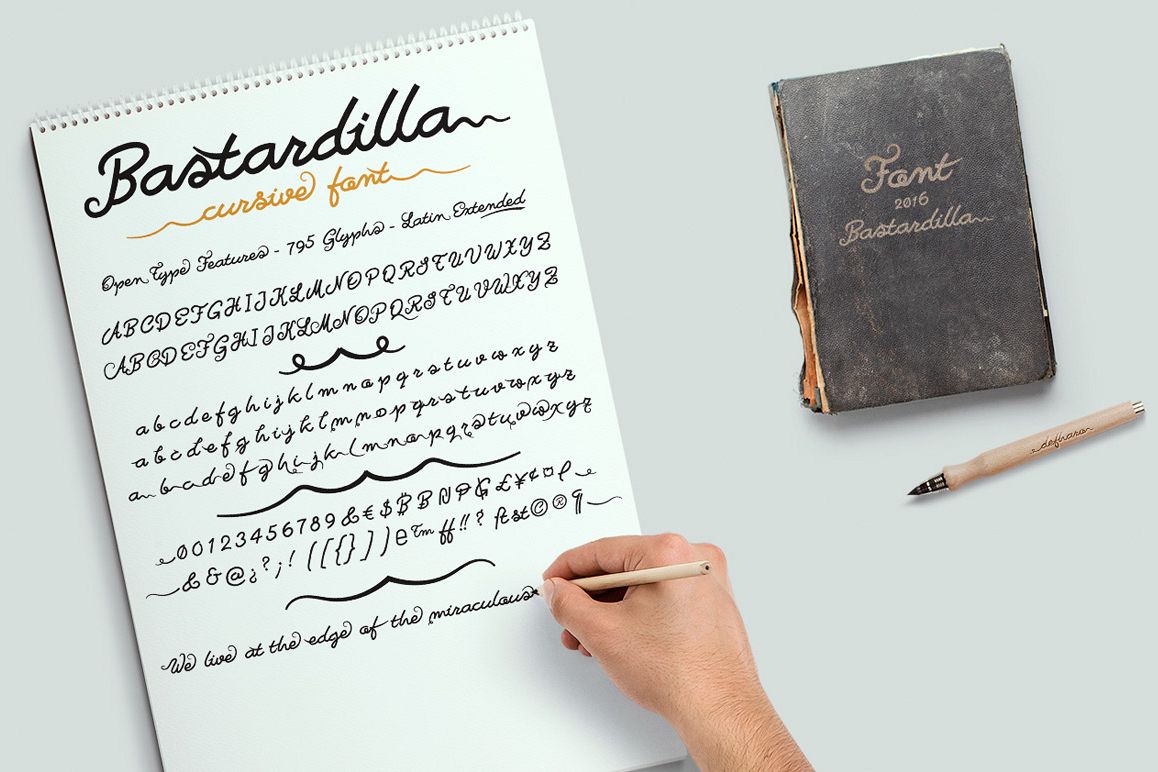
Bastardilla
Bastardilla is a concatenated handwritten font. The commercial version it has 2 complete sets of Capital letters and 3 sets of lowercase letters, including one for terminals letters (swashes) and one for initial letters.
The font also has a set of 8 ornaments for decorating phrases.
Bastardilla has several ornaments, use the following keys:
• Keys: () [] {}
Apply discretionary ligatures in QuarkXpress, InDesign, Photoshop and Illustrator for the original characters.
Bitcoin symbols (Standard Ligatures):
Keys: #B
Keys: #b
- Numbers old style, Ligatures,  Fractions, Currencies, Denominators, Numerators, Slash zero, Inferiors, Superiors, Dynamic fractions, Ordinals, Swashes, Terminal & Initial forms, Alternate titles, Contextual alternates.